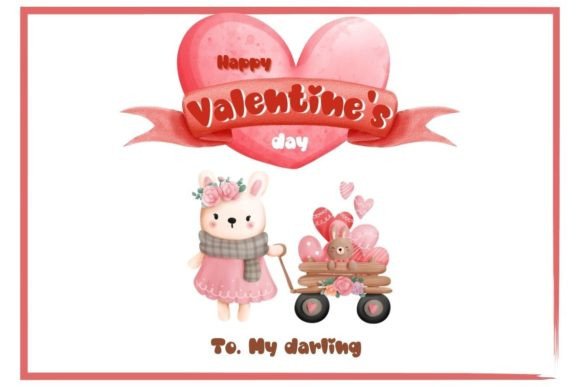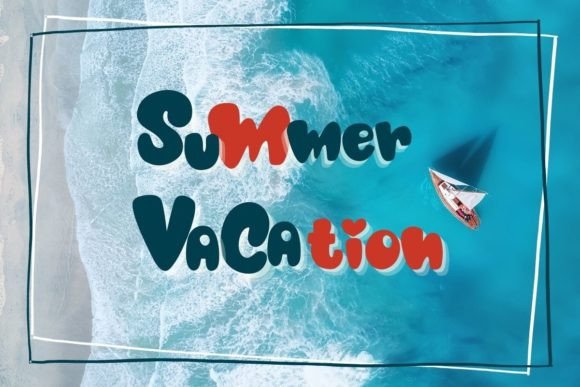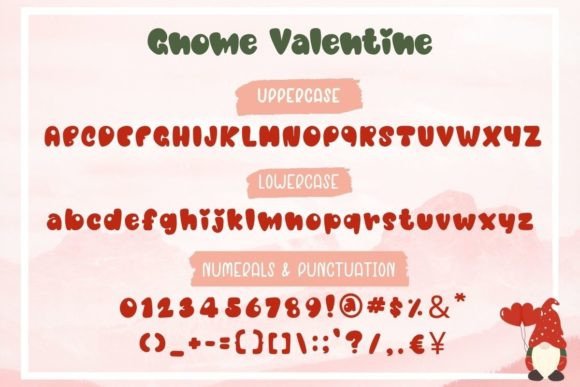
Gnome Valentine Font: The Perfect Choice for Your Design Projects
Are you looking for a font that can add a touch of whimsy and charm to your design projects? Look no further than the Gnome Valentine Font. This adorable display font is perfect for a wide range of design ideas and products, from banners and mugs to cards, shirts, and stationery. In this article, we’ll take a closer look at the Gnome Valentine Font and explore its features, benefits, and uses.
What is Gnome Valentine Font?
Gnome Valentine is a cute and slightly quirky display font that is sure to capture the hearts of designers and crafters alike. Its casual charm makes it perfect for a wide pool of design ideas and products. The font features a unique and playful design, with each letter and number carefully crafted to create a sense of whimsy and fun.
Features of Gnome Valentine Font
The Gnome Valentine Font has several features that make it a great choice for designers and crafters. Some of its key features include:
- Cute and quirky design: The Gnome Valentine Font has a unique and playful design that is sure to add a touch of whimsy to your design projects.
- Casual charm: The font has a casual charm that makes it perfect for a wide range of design ideas and products.
- Display font: The Gnome Valentine Font is a display font, making it perfect for headlines, titles, and other display text.
- Easy to read: Despite its playful design, the Gnome Valentine Font is easy to read, making it perfect for use in a variety of design projects.
Benefits of Using Gnome Valentine Font
There are several benefits to using the Gnome Valentine Font in your design projects. Some of the key benefits include:
- Adds a touch of whimsy: The Gnome Valentine Font adds a touch of whimsy and charm to your design projects, making them stand out from the crowd.
- Perfect for a wide range of projects: The font is perfect for a wide range of design ideas and products, from banners and mugs to cards, shirts, and stationery.
- Easy to use: The Gnome Valentine Font is easy to use and can be easily integrated into your design projects.
- High-quality design: The font features a high-quality design that is sure to impress.
Uses of Gnome Valentine Font
The Gnome Valentine Font is perfect for a wide range of design ideas and products. Some of the most popular uses for the font include:
- Banners: The font is perfect for creating eye-catching banners for events, sales, and more.
- Mugs: Add a touch of whimsy to your mug designs with the Gnome Valentine Font.
- Cards: The font is perfect for creating cute and playful cards for special occasions.
- Shirts: Add a touch of personality to your shirt designs with the Gnome Valentine Font.
- Stationery: The font is perfect for creating custom stationery, including notebooks, journals, and more.
- Social media posts: Use the Gnome Valentine Font to add a touch of whimsy to your social media posts.
Tips for Using Gnome Valentine Font
Here are a few tips for using the Gnome Valentine Font in your design projects:
- Use it sparingly: The Gnome Valentine Font is a display font, so it’s best to use it sparingly to add emphasis to your design.
- Pair it with other fonts: The font pairs well with other fonts, so feel free to experiment with different combinations.
- Experiment with colors: The Gnome Valentine Font looks great in a variety of colors, so don’t be afraid to experiment.
The Gnome Valentine Font is a cute and slightly quirky display font that is perfect for a wide range of design ideas and products. Its casual charm and playful design make it a great choice for designers and crafters alike. With its ease of use and high-quality design, the Gnome Valentine Font is sure to become a favorite in your design arsenal.